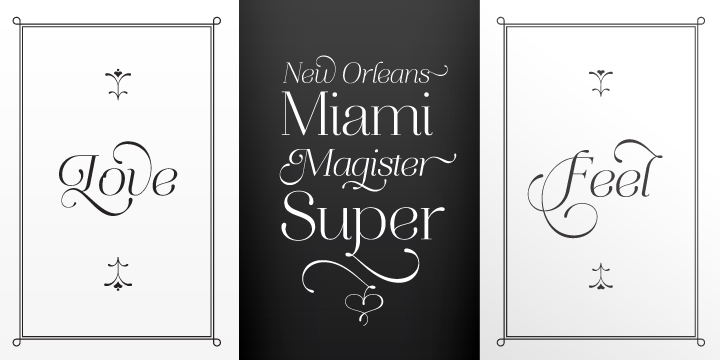
Aire
Aire is created by Maximiliano Sproviero and loaded with a huge number of stylish ligatures, alternate and the entire cyrillic alphabet. The overall impression of the font is that of lightness and delicateness. This feminine font is definitely a treat to the eyes. Get Aire font on MyFonts Aire font detail Foundry: Maximiliano Sproviero Released: Mar … Read more